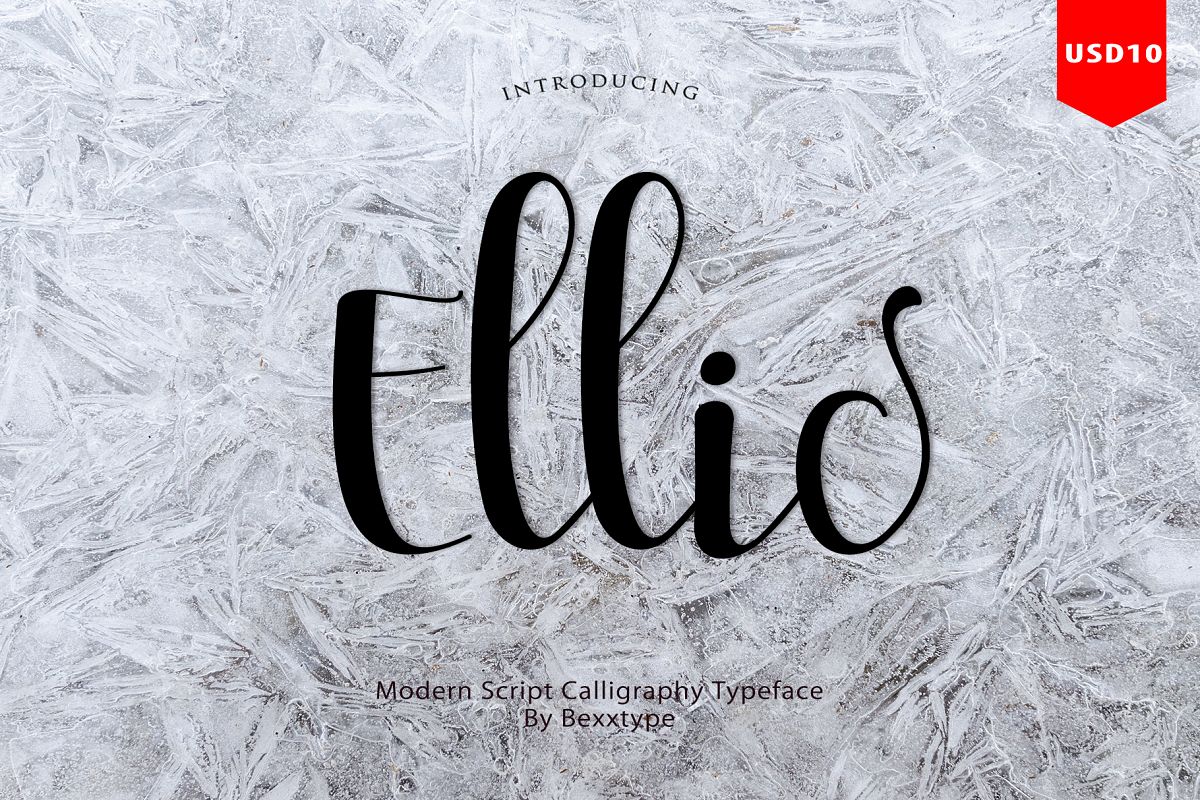
Ellic Script
Ellic Script is modern script font, every single letters have been carefully crafted to make your text looks beautiful. With modern script style this font will perfect for many different project, example: weddings, invitations, greeting cards, posters, name card, quotes, blog header, branding, logo, fashion, apparel, letter, stationery,